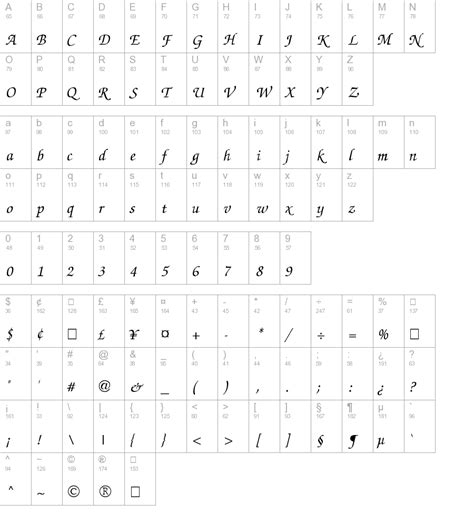
Chancery Italic Calligraphy Font - Chancery Uralic Italic font download free (truetype) : This traditional calligraphy font inspired by italic chancery hands from the 16th and 17th century is great for headings at large sizes when a formal feel is need.. Chancery cursive font is script font which is designed by digital graphic labs. Similar fonts for itc zapf chancery italic from myfonts.com. Truetype font (.ttf) file name: This is the page of zapf chancery font. Find this pin and more on quotes by diane greenberg.
Itc zapf chancery medium italic font. Zapf chancery medium italic font by urw++. Cyrillic fonts, handwritten fonts, latinic fonts. This program is free software; Also you can download related fonts:
Zapf chancery font subfamily identification:
The chancery cursive font has been downloaded 16,723 times. This font is labeled as calligraphy font. This is a skill not many modern people have, but it's fun the chancery italic hand is one of the more simple calligraphy hands, so it's great for beginners. Download the chancery cursive font by digital graphic labs. Votes, rated based on results identification. This instructable will show you how to write calligraphy. Looking for calligraphy chancery fonts? This traditional calligraphy font inspired by italic chancery hands from the 16th and 17th century is great for headings at large sizes when a formal feel is need. This is a beginners guide to italic calligraphy. Free and premium font downloads. Find this pin and more on quotes by diane greenberg. ✓ click to find the best 7 free fonts in the calligraphy chancery style. Truetype font (.ttf) file name:
Below you can see glyphs zapf chancery medium italic font. We have 10 free chancery, calligraphy fonts to offer for direct downloading · 1001 fonts is your favorite site for free fonts since 2001. See this font in action: Enter the code to download urw chancery l medium italic. Zapf chancery medium italic font by urw++. Chancery cursive font is script font which is designed by digital graphic labs. You can redistribute it and/or modify it under the terms of the gnu general public license as published by the free software foundation. This font come in ttf format and support 0 glyphs. Download zapf chancery italic:001.007 for free on allfont.net. Fontsmarket has over 72000 amazing fonts which can satisfy your need by making your content stand out. Serif fonts sans serif fonts fixed width fonts gothic fonts english fonts cyrillic fonts crazy fonts handwriting and calligraphy fonts brush fonts. Every font is free to download! Finding the right calligraphy font for your needs can be a hard and arduous task.